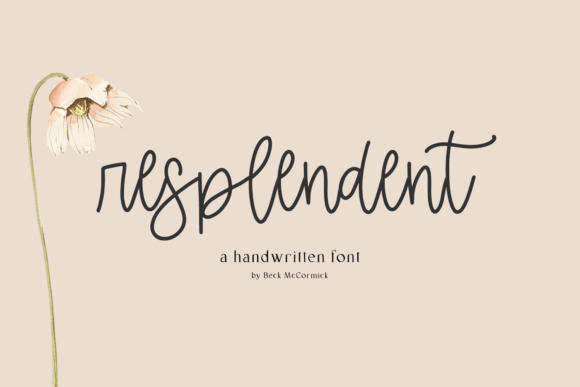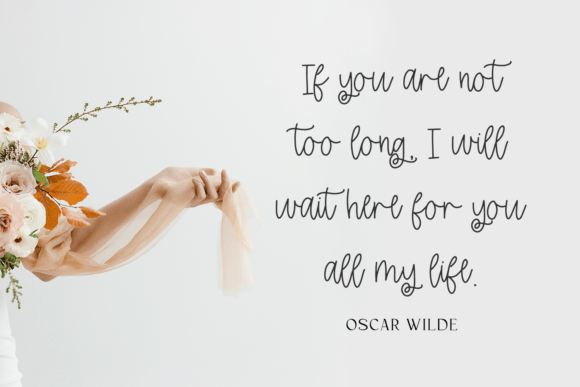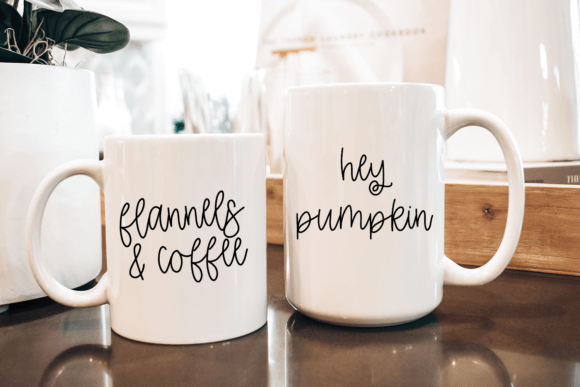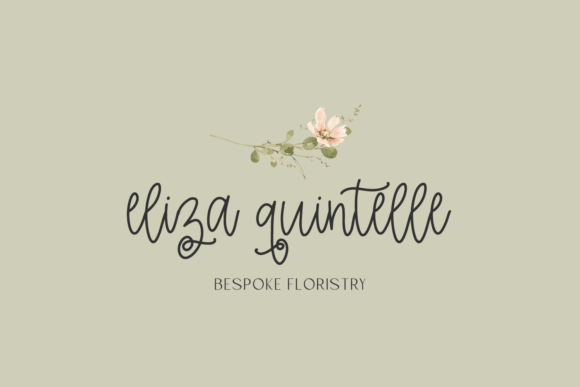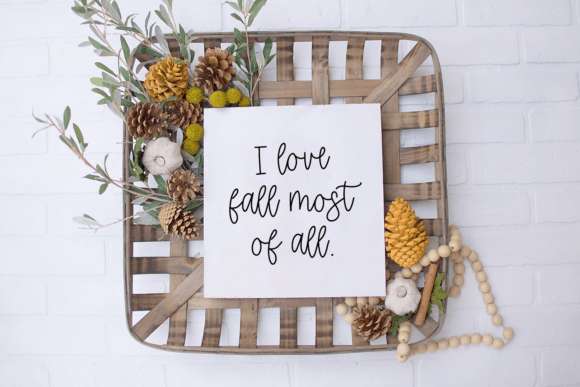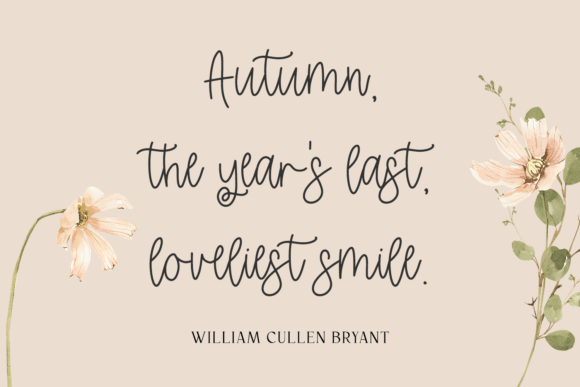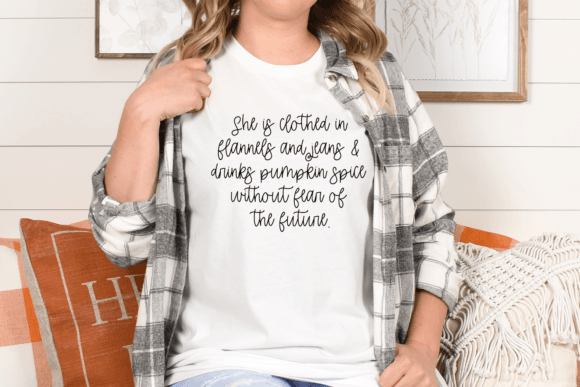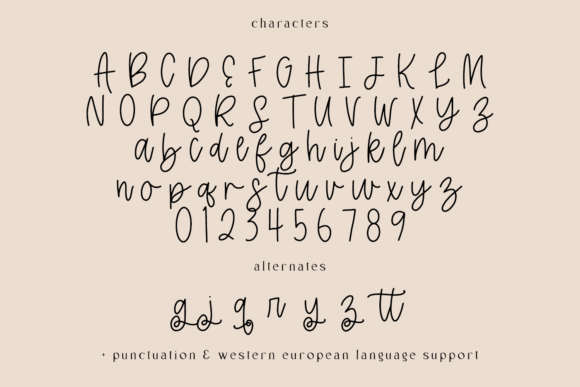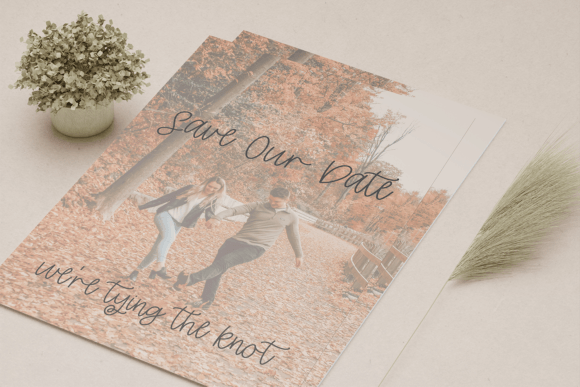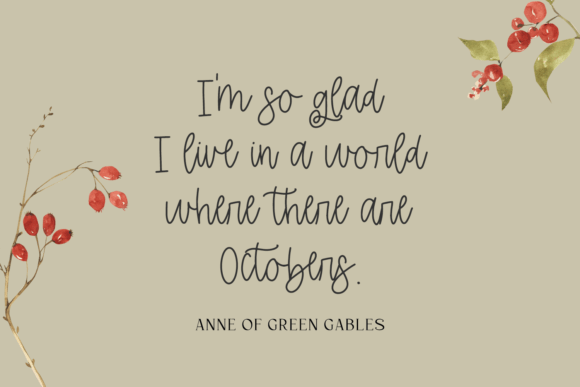
About Resplendent Font
Introducing Resplendent, a thin monoline handwritten font with a few flourished characters. Whether you’re using it for crafts, digital design, presentations, or making greeting cards, this font has the potential to become your favorite go-to font, no matter the occasion!